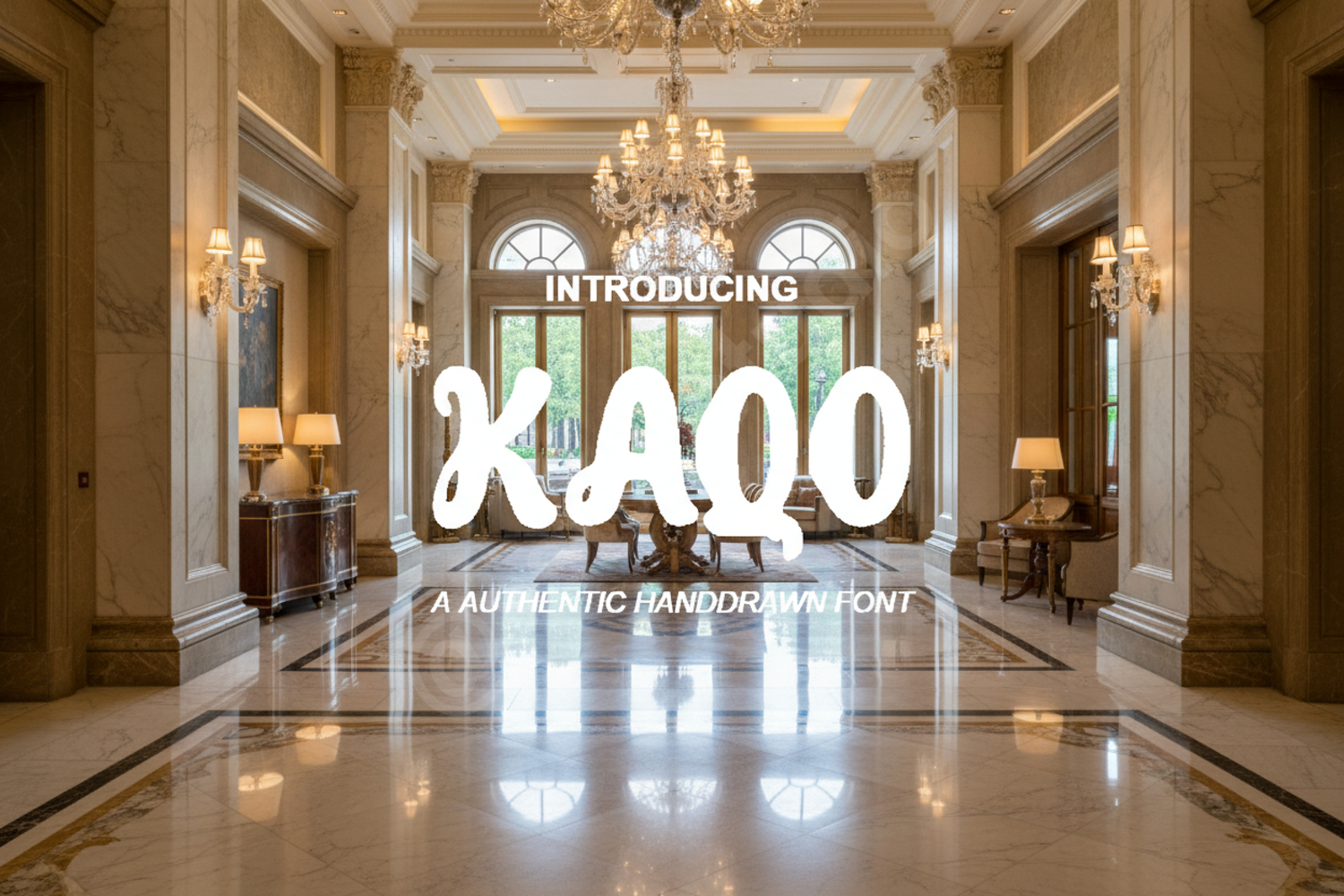
Kaqo | Sophisticated Modern Geometric Serif
Kaqo
Elevate your creative projects with Kaqo, a premium font that strikes the perfect balance between modern minimalism and timeless elegance. Designed with precision, Kaqo offers a unique geometric flair that ensures your designs stand out with professional clarity and high-end appeal. Whether you are working on a luxury brand or a clean editorial layout, this font provides the versatility needed for a polished finish.
- Full set of uppercase and lowercase characters
- Comprehensive numbers and punctuation
- Multilingual support for international projects
- Branding and Identity: Create memorable logos and cohesive brand guidelines.
- Editorial Design: Perfect for high-fashion magazines and sophisticated layouts.
- Social Media: Design eye-catching Instagram posts and Pinterest graphics.
- Packaging: Add a touch of luxury to product labels and boutique boxes.
- Wedding Stationery: Ideal for modern, minimalist invitation suites and menus.